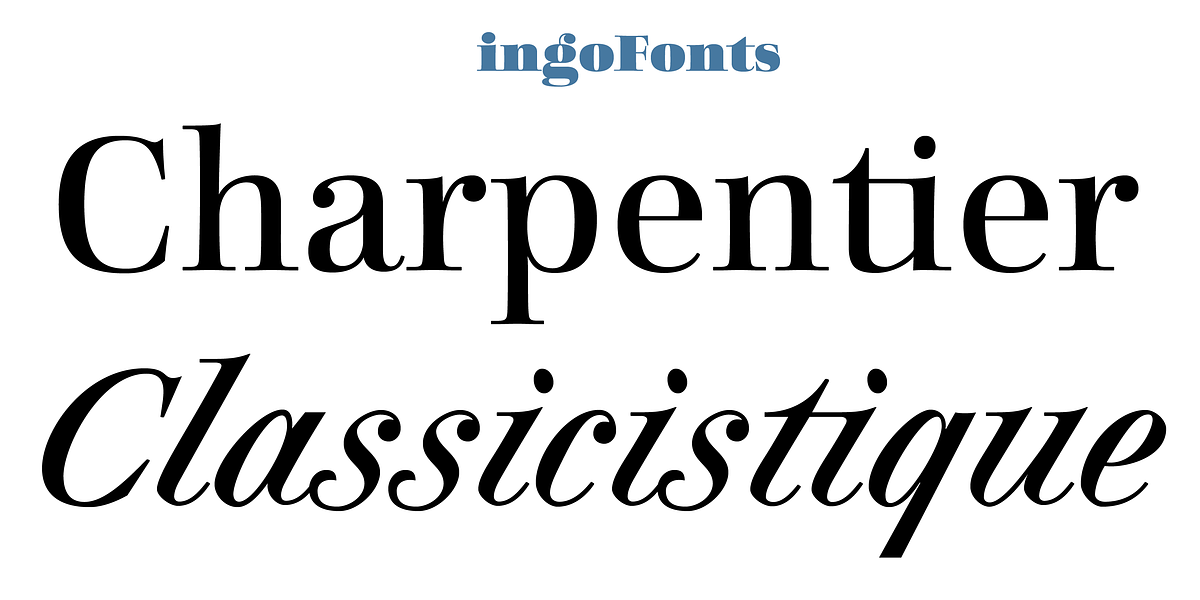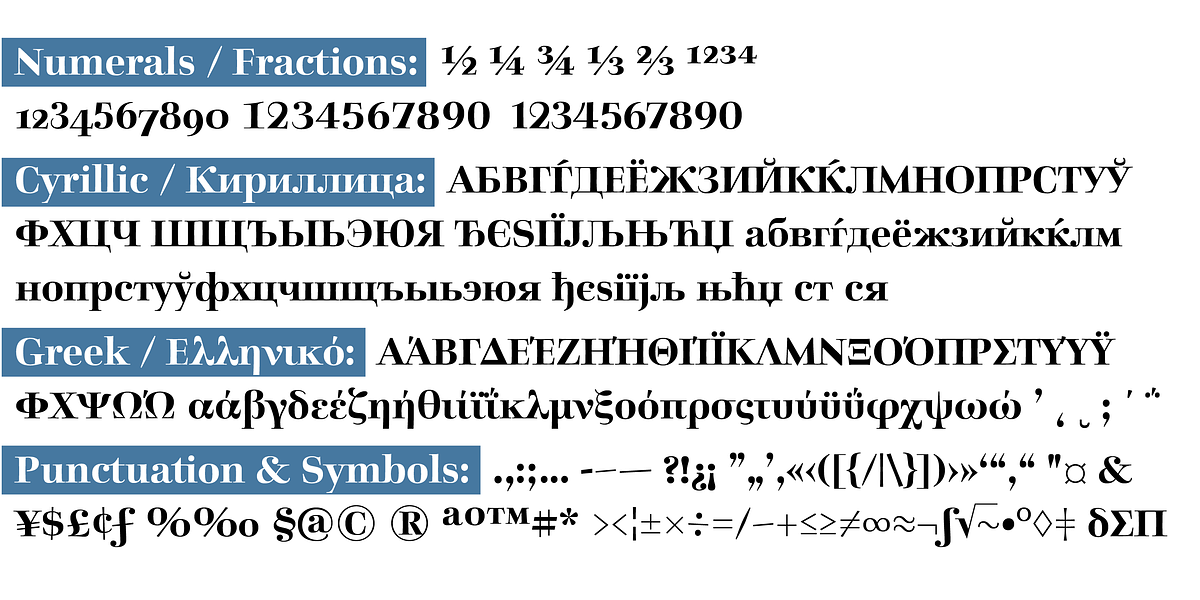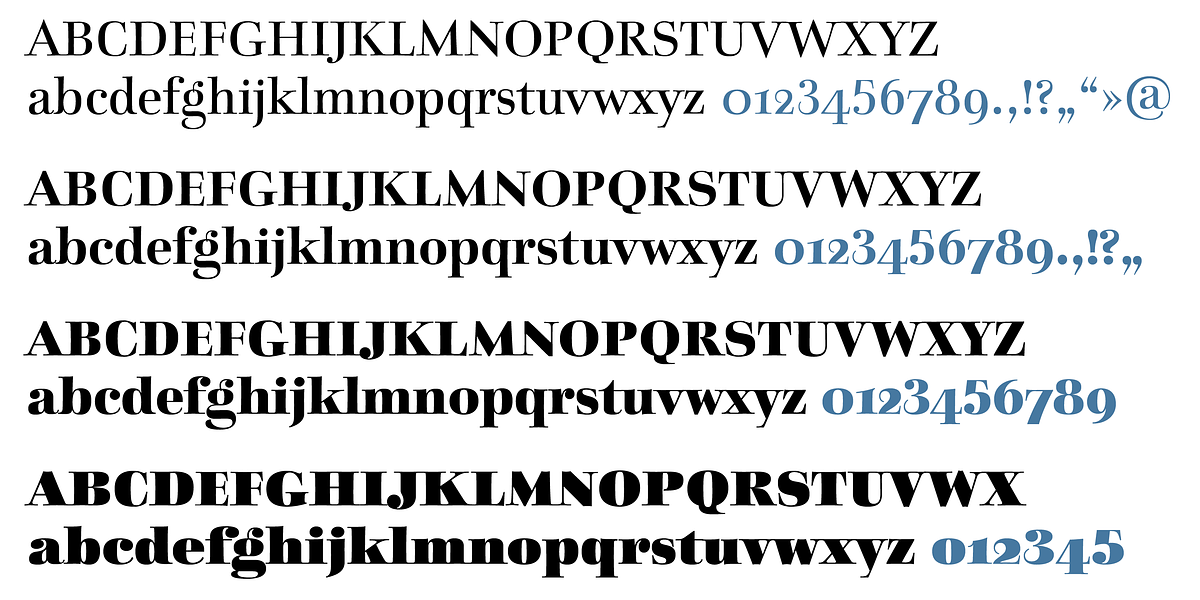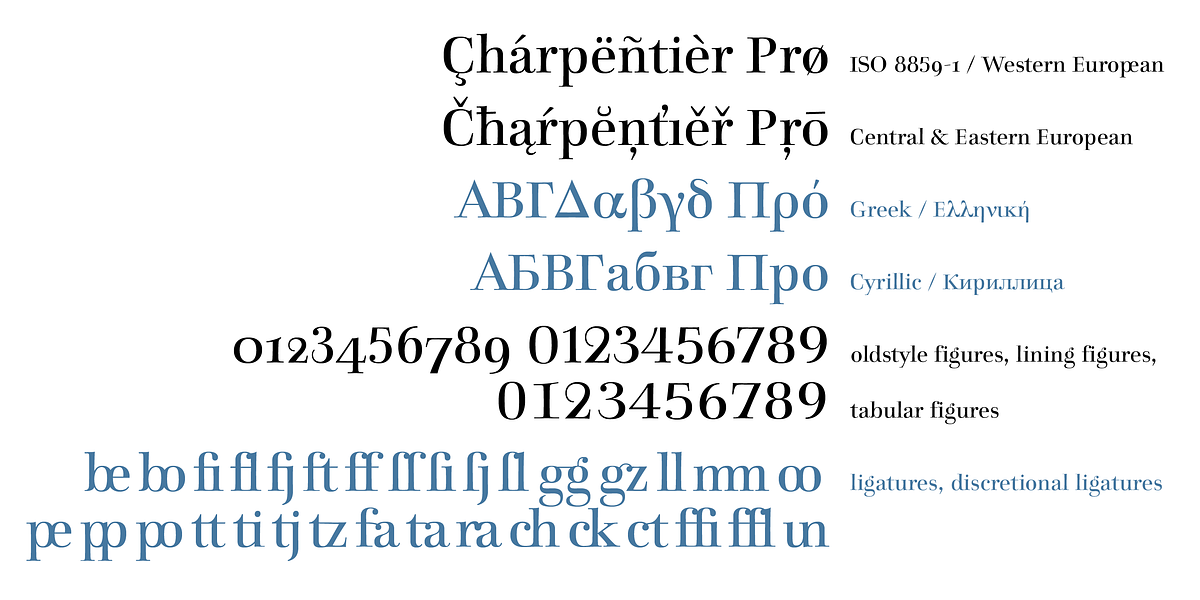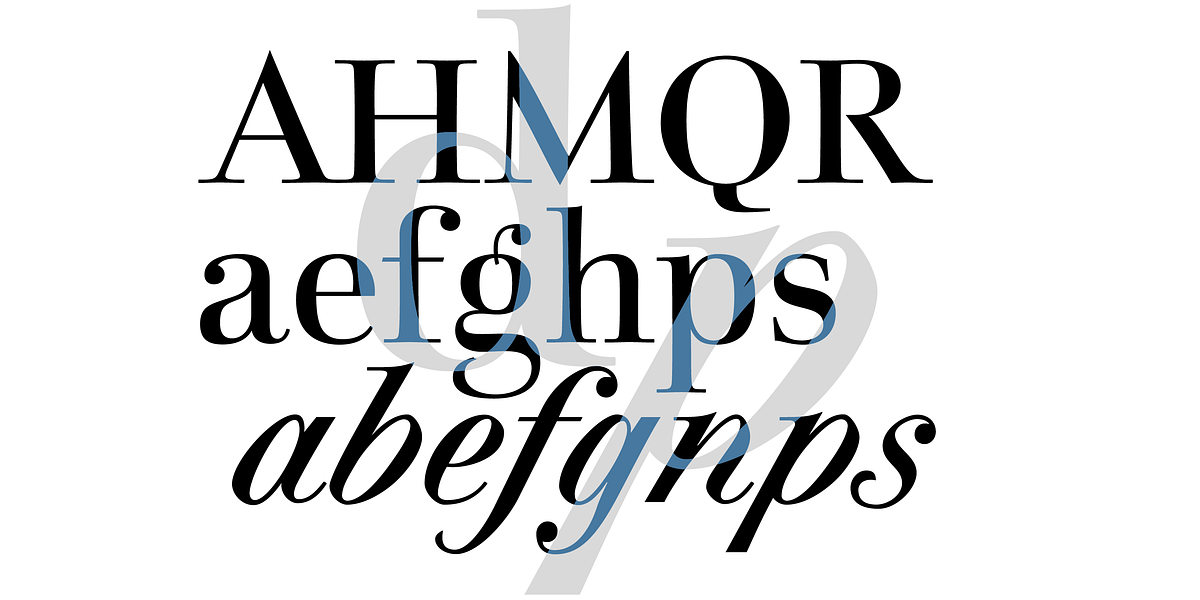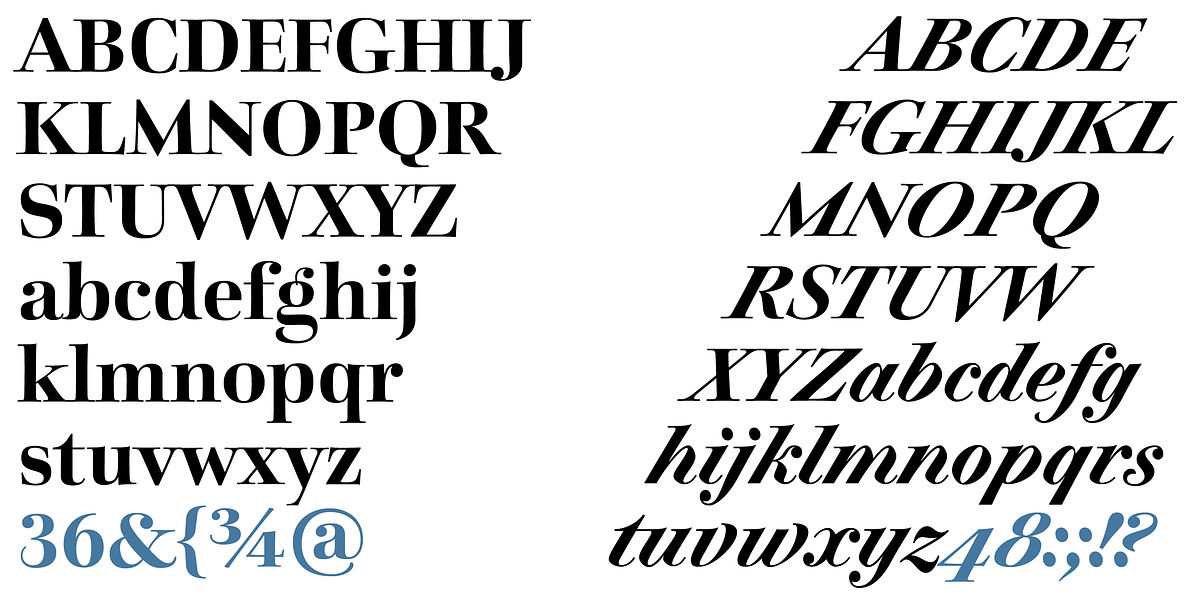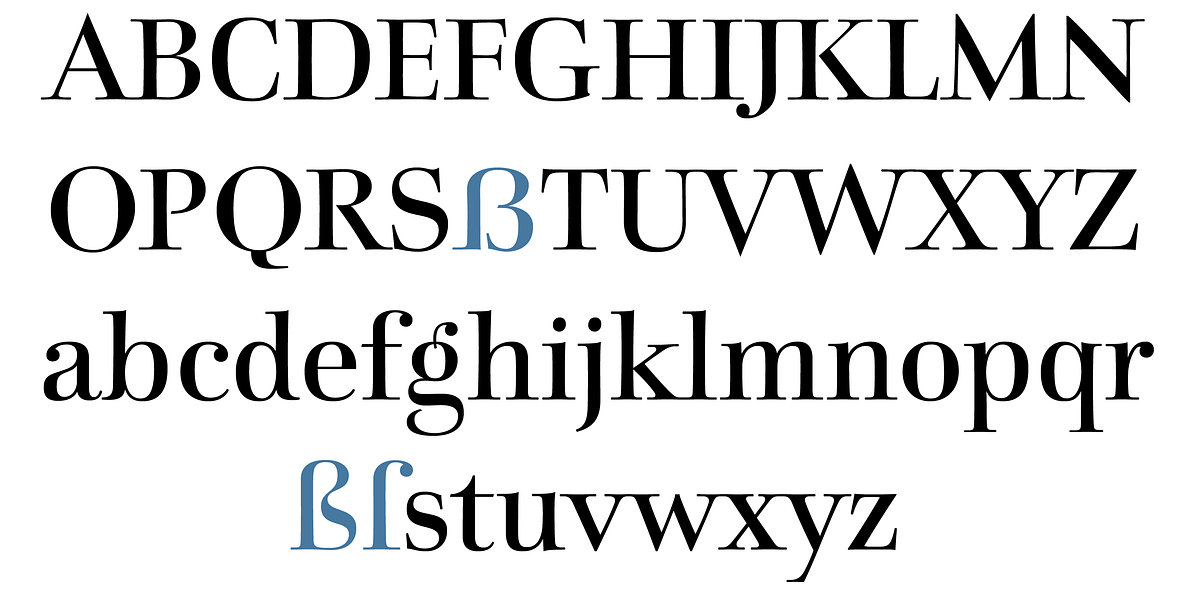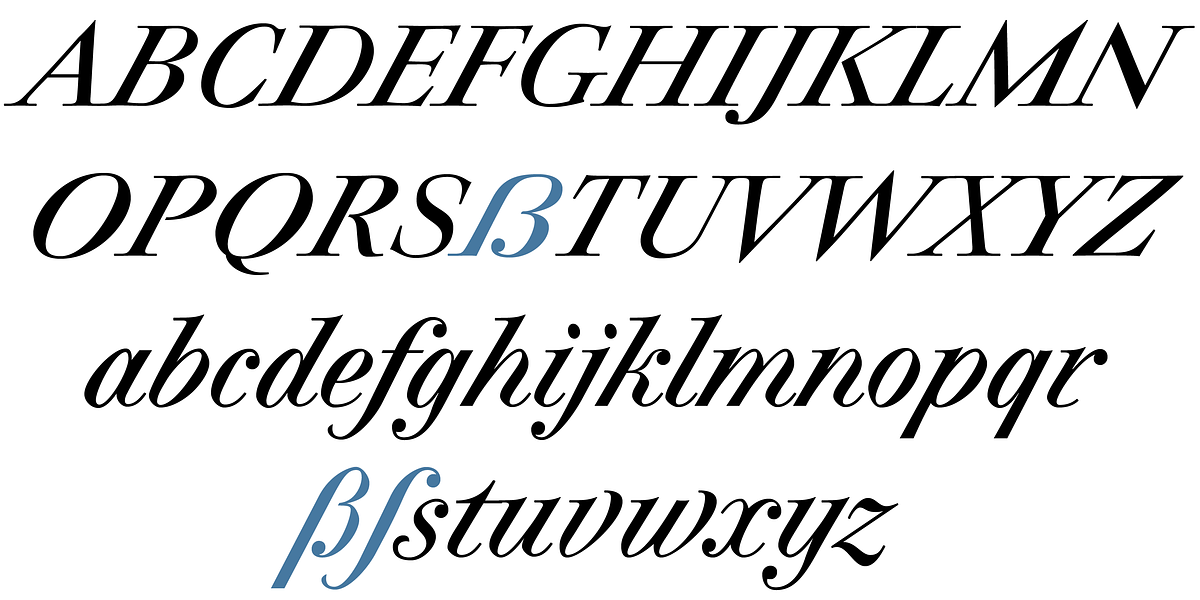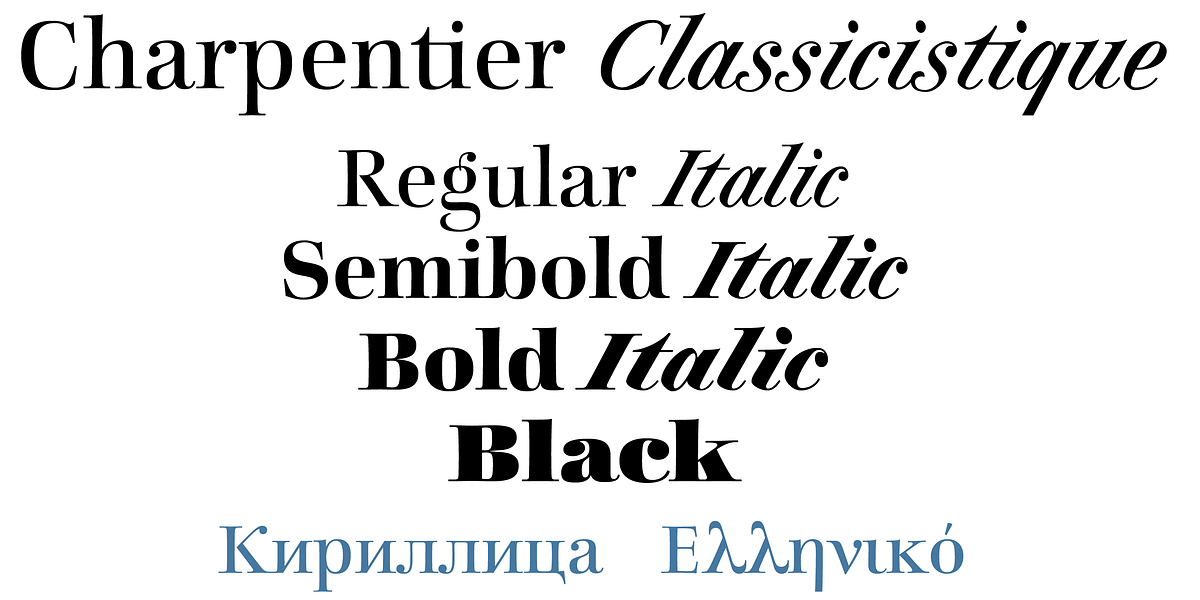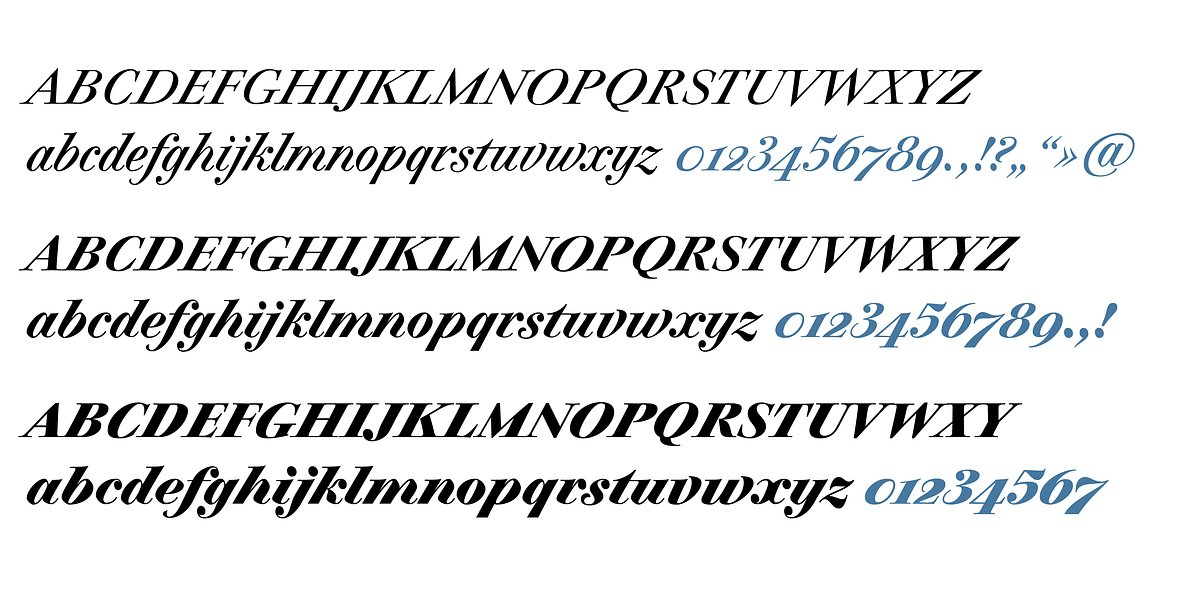
Charpentier Classicistique Pro
Charpentier Classicistique is a serif typeface that draws inspiration from classicistic Roman typefaces. It features a high contrast between thick and thin strokes, typical of this style. The font also includes fine serifs and ball terminals. While adhering to the classicistic aesthetic, Charpentier Classicistique softens the harshness often seen in other fonts of this genre, making it pleasantly legible for extended reading.